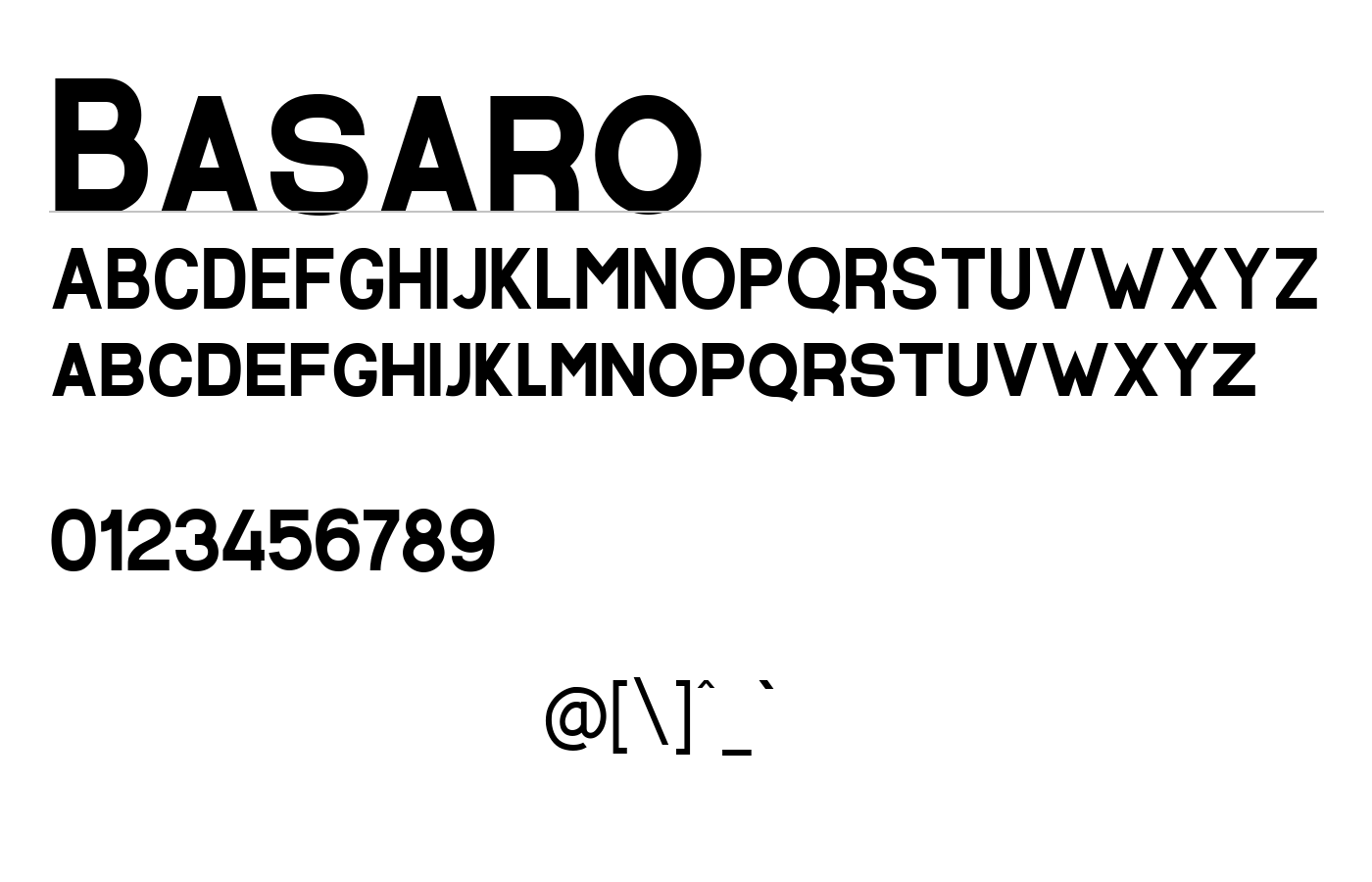
Basaro is a bold, geometric sans serif font characterized by clean, strong lines and a modern, sturdy appearance. Its uniform stroke weight and wide, balanced letterforms make it highly legible and perfect for impactful headlines, branding, and digital use where clarity and a contemporary feel are essential. This font conveys confidence and simplicity, making it well-suited for corporate identities, tech companies, and editorial design.
Basaro Font
About Basaro Font
| Font family | Basaro Font |
| Release date | 2018-07-25 |
| Designer | Lukman Hidayat "Viaction Type.Co" |